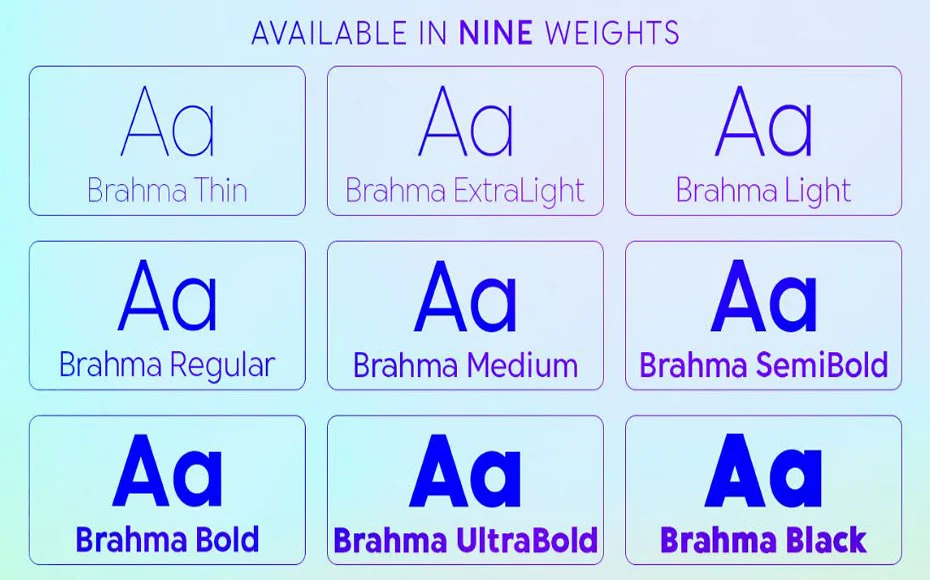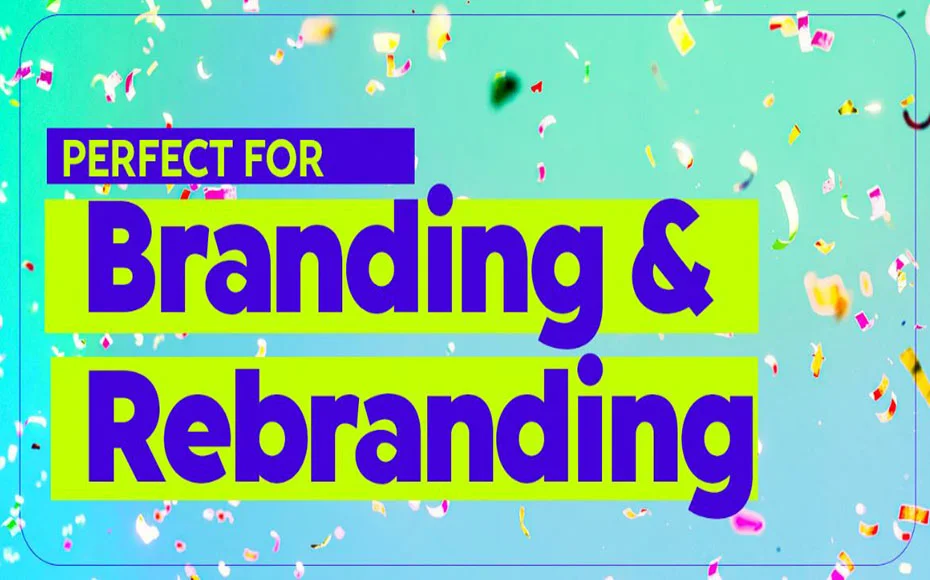
Brahma Font is a modern geometric sans-serif typeface with weights ranging from Thin (100) to Black (900). It was designed by Kedar G and published by Tall Chai. Brahma is available in 9 weights, over 550 glyphs, and supports extended Latin.
The font family is perfect for use in modern apps and websites. It is also well-suited for branding, marketing materials, and print. It has a lot of OpenType features (like ligatures and tabular numerals) and the Extended Latin character set supports over a hundred languages.
Whether you’re designing a sleek corporate logo, a striking headline, or a minimalist website, Brahma Font will effortlessly add a touch of modernity to your work.
Its carefully balanced letterforms and ample character set offer exceptional usability across various mediums, ensuring seamless integration into your design process.
It can be used for a variety of purposes. It is perfect for modern apps and websites, as well as branding, marketing materials, and print.
You can easily create several designs with its help like covers, posters, banners, headlines, logos, brochures, game titles, product designs, product packaging, magazines, game developments, cv templates, unique emblems, card print, etc. This font is also excellent for designing invoices, animation logos, ebook covers, and product packaging.